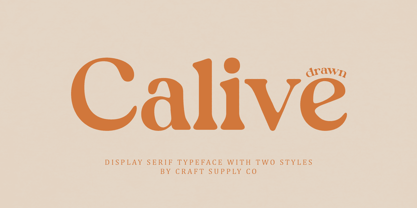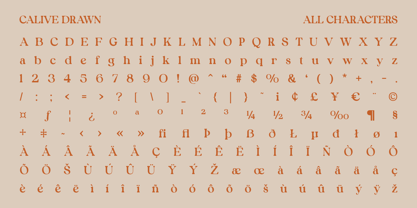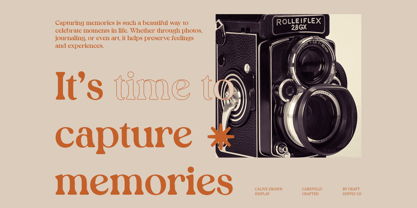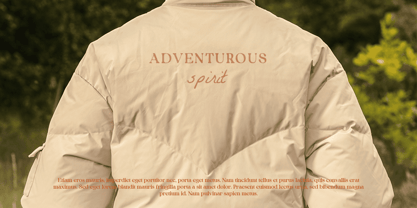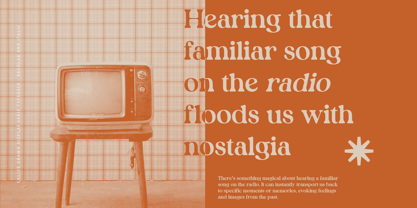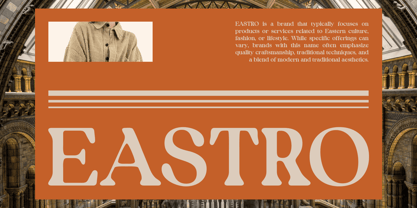
Calive Drawn
by Craft Supply Co
The Calive Drawn Font Family was designed by Trio Nazzar Saputra, Wahyu Hadi Yuana and published by Craft Supply Co. Calive Drawn contains 2 styles and family package options.
Calive Drawn Font: Embracing Retro Elegance
Classic Serif with a 90s Nostalgic Essence
Calive Drawn is a classic serif font that beautifully embodies the nostalgic essence of the 90s. Its decorative elements and bold strokes evoke a sense of retro charm that instantly transports viewers back to a bygone era. This font’s distinctive letterforms, enhanced by a hand-drawn effect, add an artisanal quality, making it visually engaging and unique.
Nostalgic Design for Timeless Appeal
With its roots in the vibrant aesthetics of the 90s, Calive Drawn captures the spirit of an era characterized by bold creativity and artistic expression. The carefully crafted letterforms and decorative details bring a sense of warmth and familiarity, making the font an excellent choice for projects that aim to resonate emotionally with audiences. This nostalgic design offers a timeless appeal that can elevate any creative endeavor.
Artisanal Quality for Unique Visual Impact
The hand-drawn effect in Calive Drawn not only enhances its visual charm but also imparts a personal touch that resonates with viewers. This artisanal quality ensures that each character feels crafted and thoughtful, setting it apart from more generic typefaces. The bold strokes and distinctive letterforms create a dynamic contrast, resulting in a font that is both eye-catching and memorable.
Designers: Trio Nazzar Saputra, Wahyu Hadi Yuana
Publisher: Craft Supply Co
Foundry: Craft Supply Co
Design Owner: Craft Supply Co